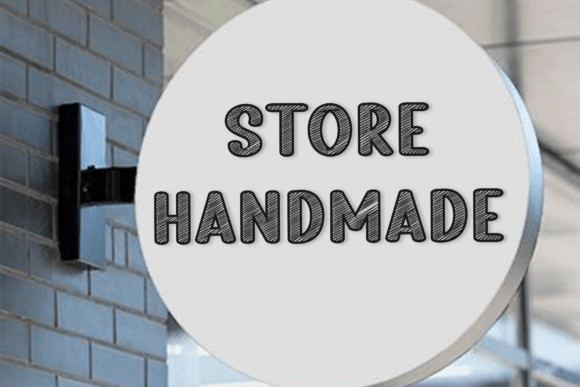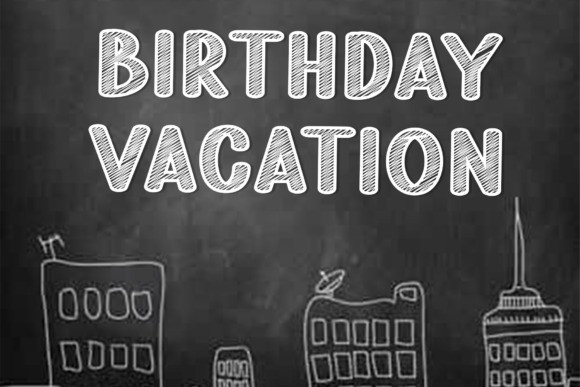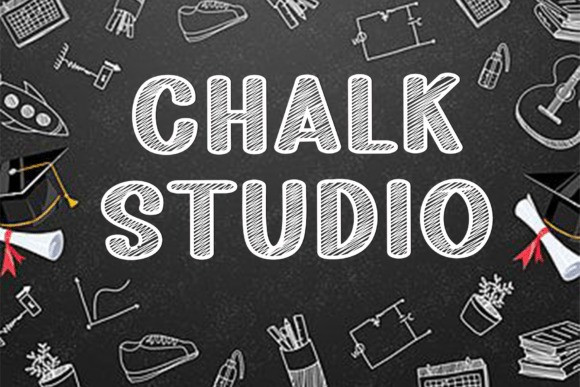
Chalk Studio Font
Chalk Studio Font is a display font inspired by the texture of chalk writing on a blackboard. The letters are bold, uppercase, and filled with diagonal line shading that mimics the authentic look of chalk strokes. This construction gives each glyph a tactile, handcrafted quality that feels both playful and educational.
The font is carefully designed with clean outlines and inner hatching, ensuring the chalk effect is clear even at smaller sizes. The glyphs are structured with simple geometric bases but enhanced by angled strokes that recreate the rough yet charming finish of classroom chalkboards.
Chalk Studio is ideal for school-themed projects, posters, children’s materials, teaching resources, cafe menus, DIY crafts, and playful branding. It’s especially effective in designs that need to communicate creativity, learning, or a handmade aesthetic.
With its bold display style and unique chalk-texture construction, Chalk Studio is a versatile choice for designers who want to bring energy and authenticity to their work.